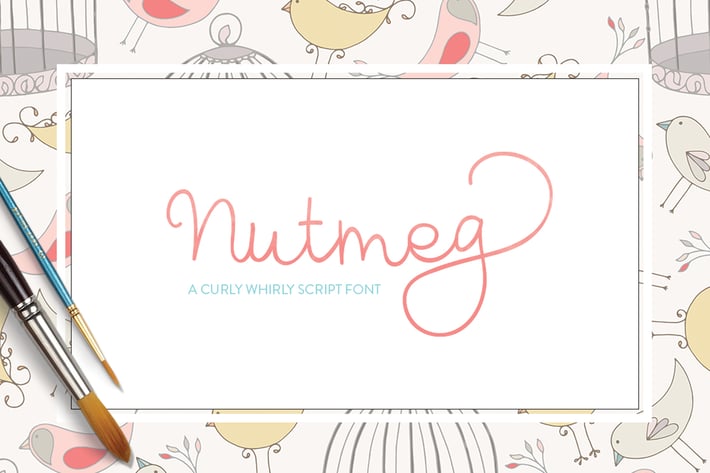
Nutmeg Font
Nutmeg is a brand new curly swirly based hand-drawn font. All characters are 100% accessible on programs. This includes the special alternate characters that come with the set.